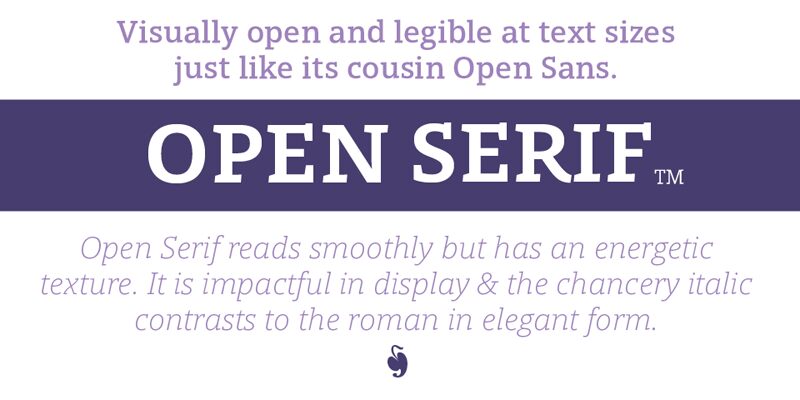
Open Serif is a timeless and elegant serif font that exudes a refined sophistication. Designed by Steve Matteson, this font family features distinctive, classical serifs that lend a sense of timelessness and authority to any text. The clean, readable letterforms and balanced proportions make Open Serif an excellent choice for a wide range of design applications, from high-end editorial layouts to corporate branding.
Its versatility allows it to seamlessly transition between formal and informal settings, making it a versatile and reliable typographic tool for designers seeking to cultivate a sense of tradition and professionalism.
Open Serif is the perfect text font to complement Open Sans, the most widely used typeface family on the internet. Additional members of the Open Serif family may be purchased from MyFonts.com.
OPEN SERIF - answering the question what font pairs well with Open Sans?. Designed by Steve Matteson for extraordinary legibility and comfortable reading on screen and in print.
Open Interpretation: Not quite Veronese not quite Egyptian. A dash of panache in an otherwise sturdy serif typeface. Open Serif is an elegant text and display typeface family.
Open Interiors: Visually open and legible at text sizes just like its cousin Open Sans. Open Serif reads smoothly but has an energetic texture. The chancery style italic contrasts nicely to the roman in a full bodied nod to Italian Renaissance forms.
Open Type: Open Serif is full of OpenType features including Small Capitals for the Roman, Italic Swash Capitals and Old Style Figures for both.
Open Translation: Supporting all the languages available in Open Sans, Open Serif completes the translation capabilities of international companies. Extended text is more pleasant to read in a serif typeface so go global with a unified typeface family!
Open Face: Open Serif Titling is an elegant companion to round out the family. These open-face' capital letters are ideal for initial letters, mastheads, titles and decoration.